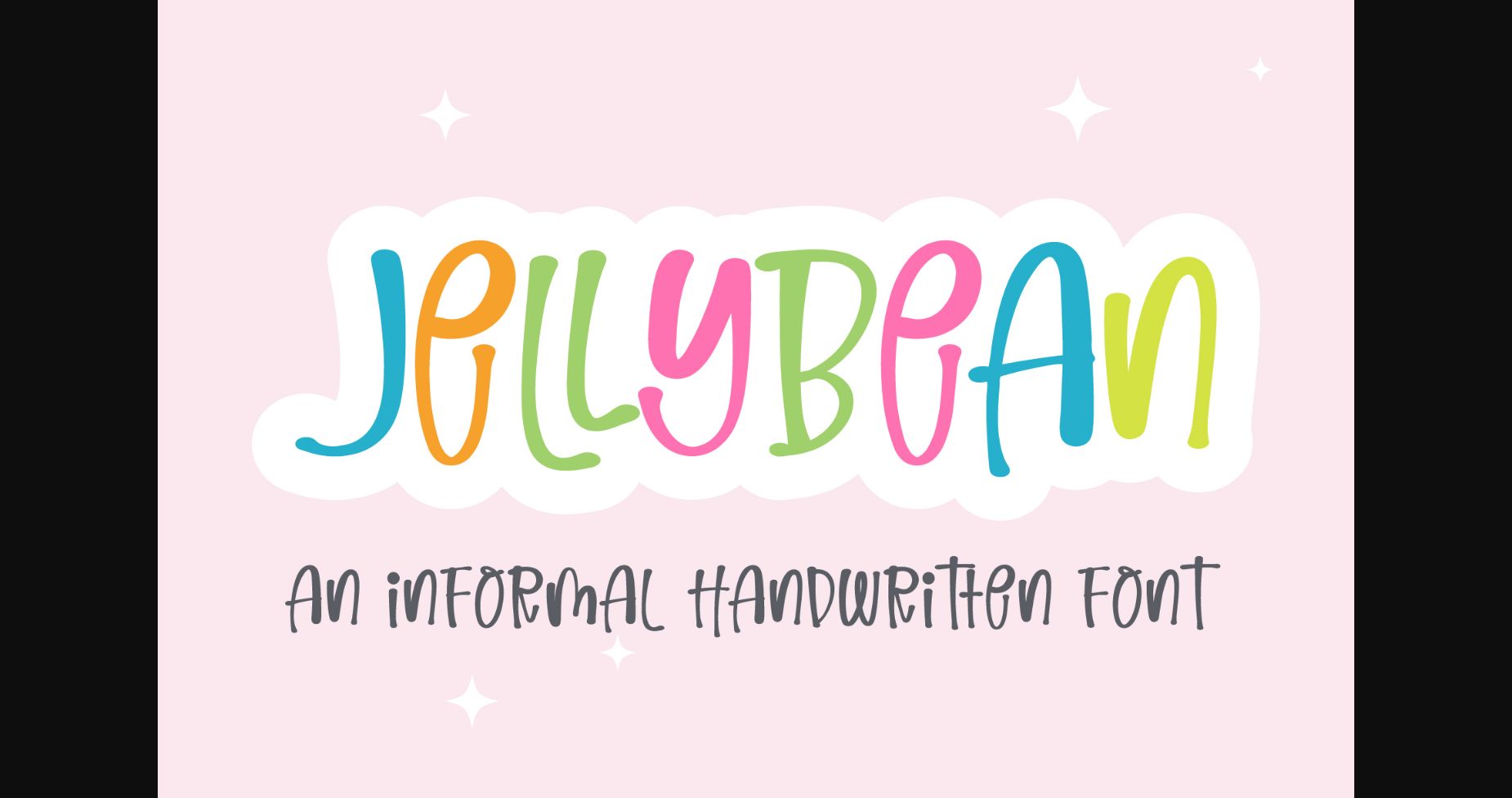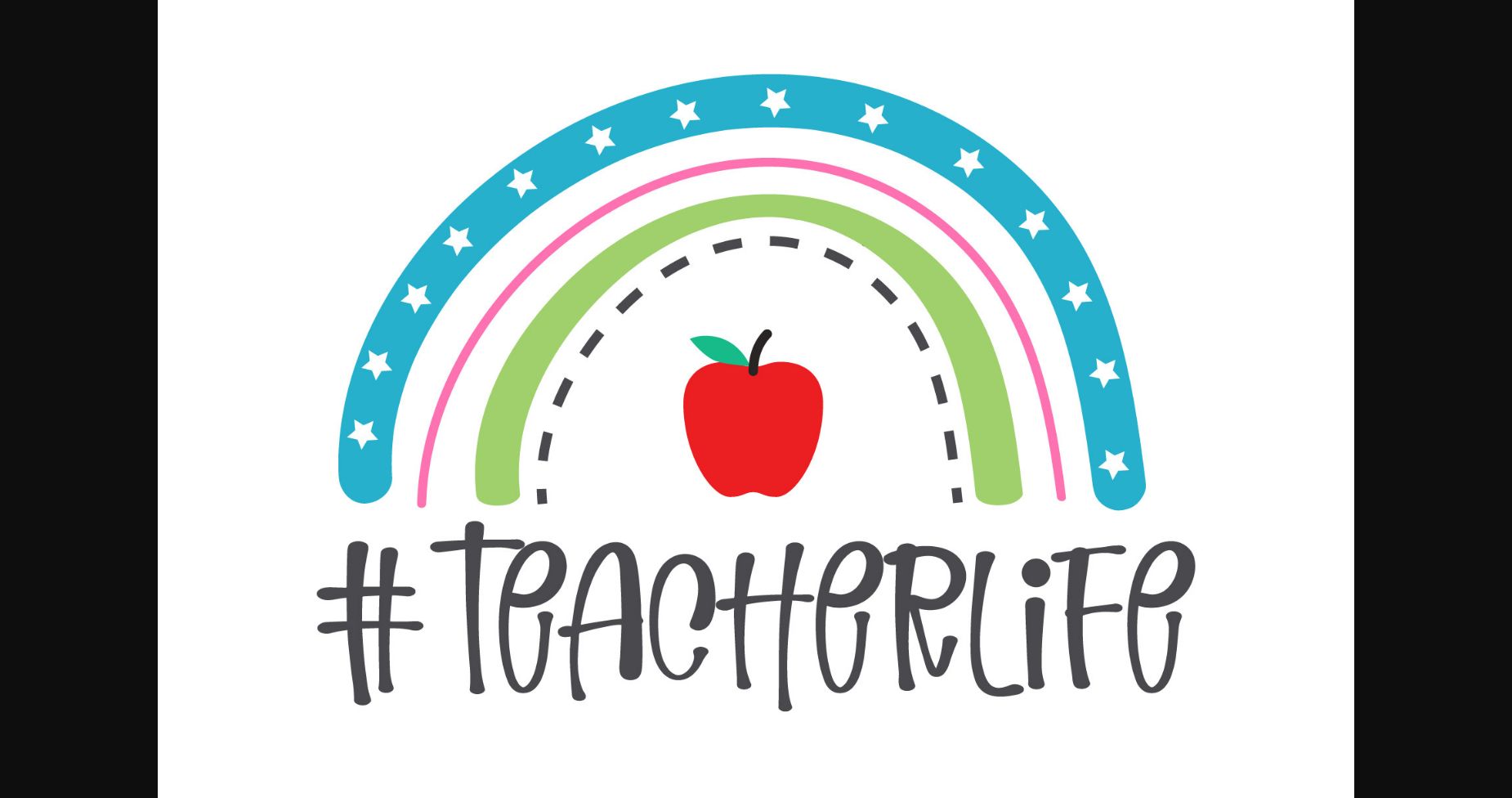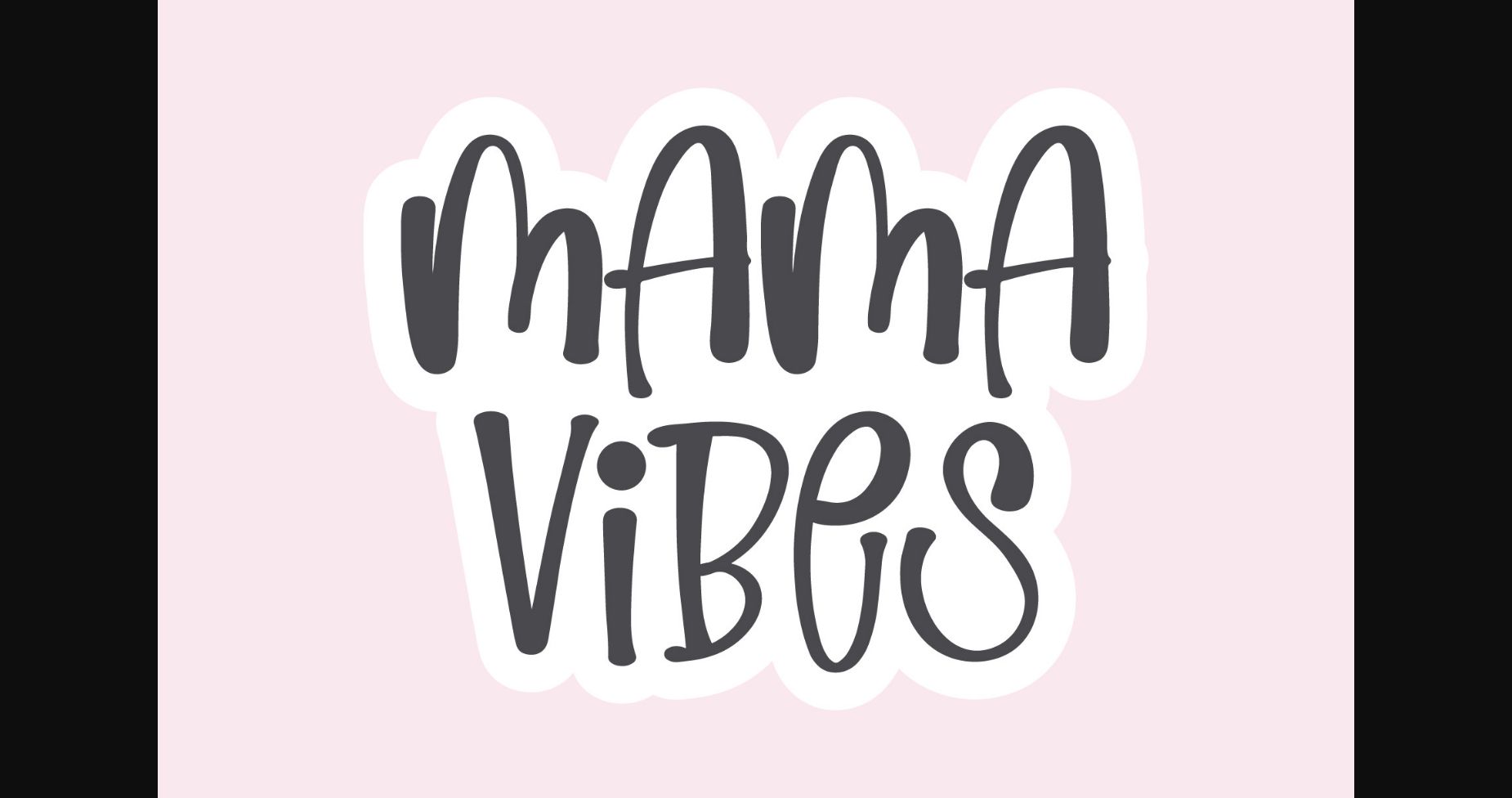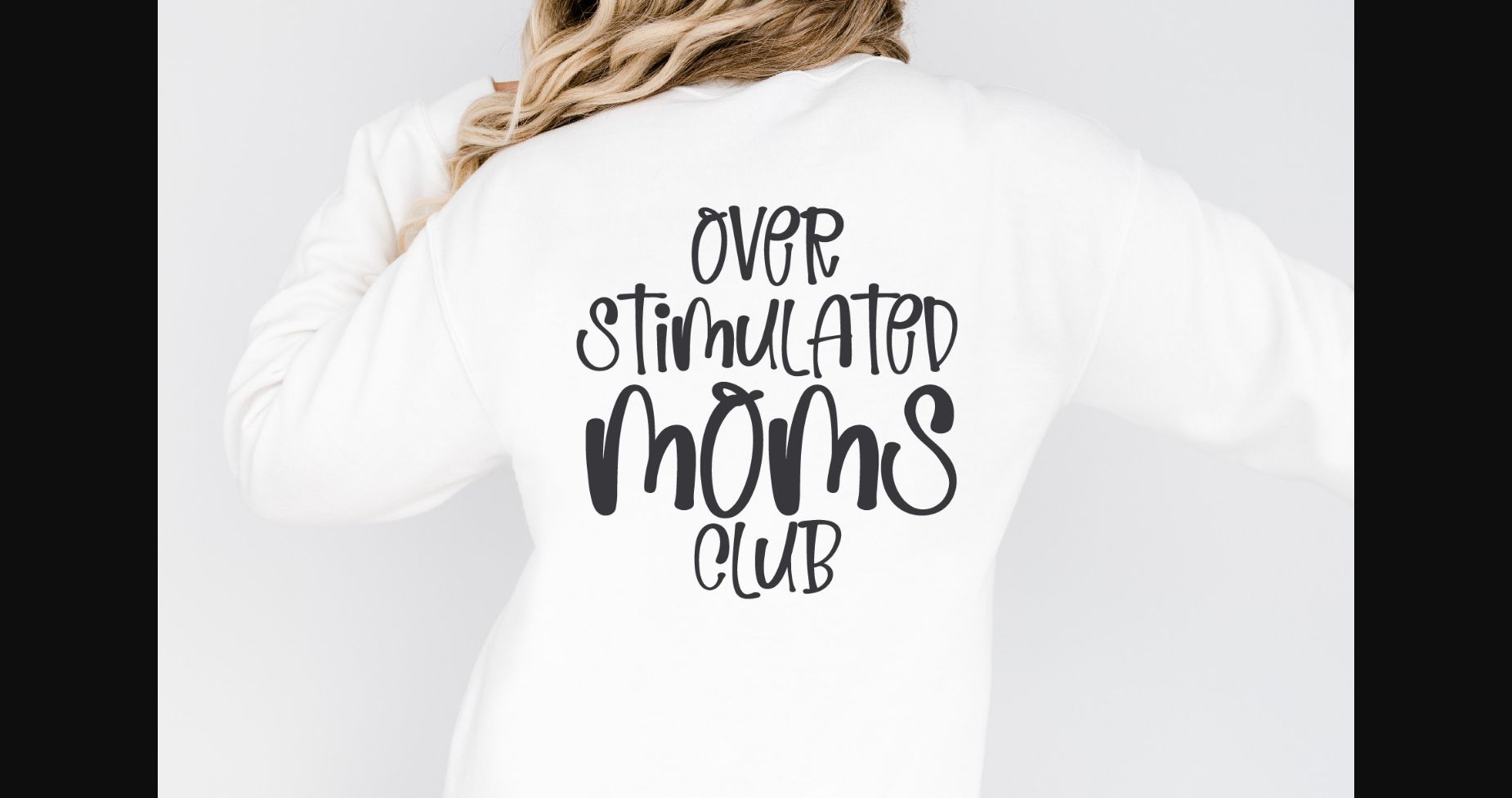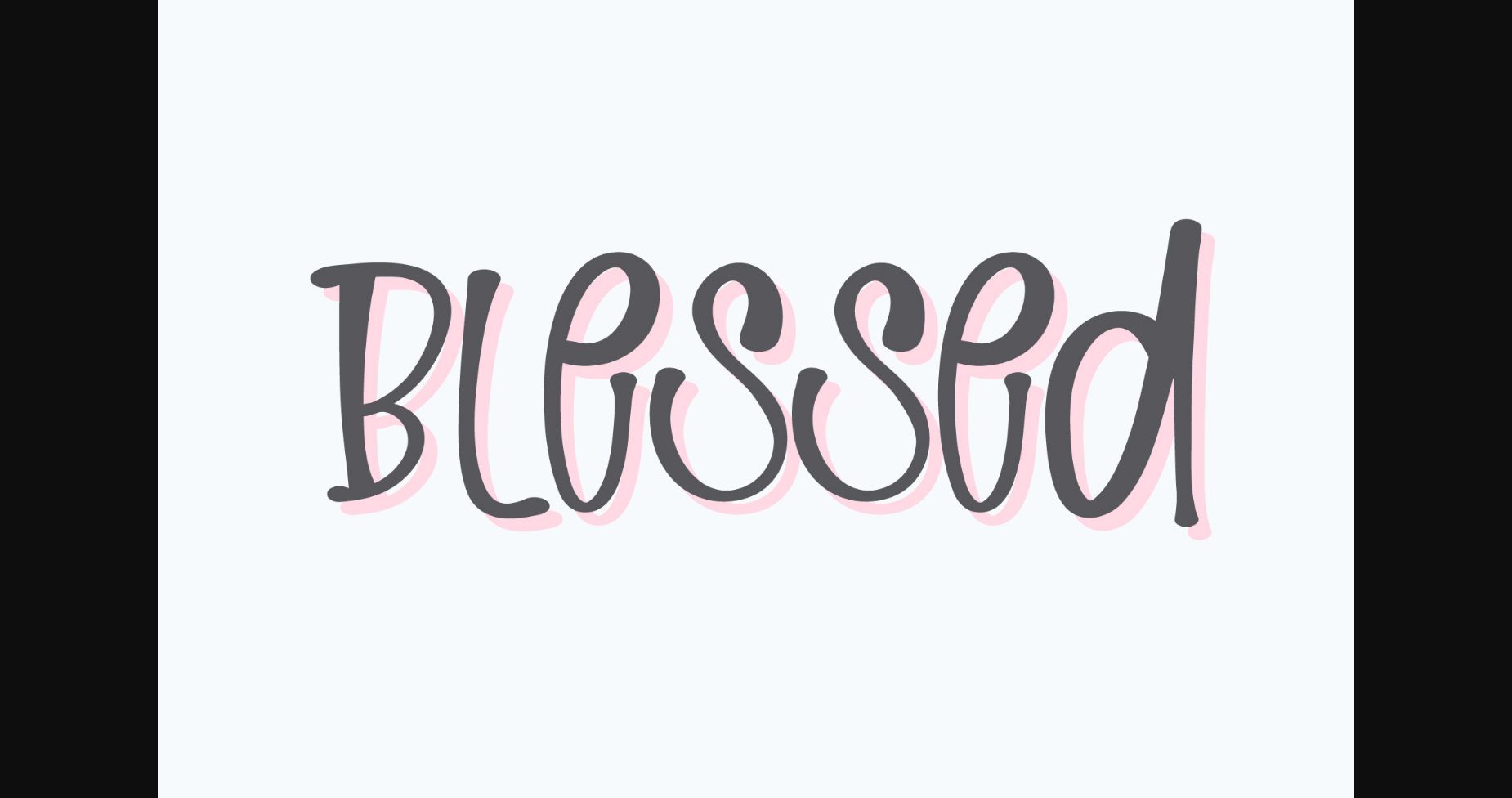
About Jellybean Font
Jellybean is a sweet and cute sans serif font. Fall in love with its incredibly versatile style and use it to create fun wedding invitations, beautiful stationary art, eye-catching social media posts, and much more!